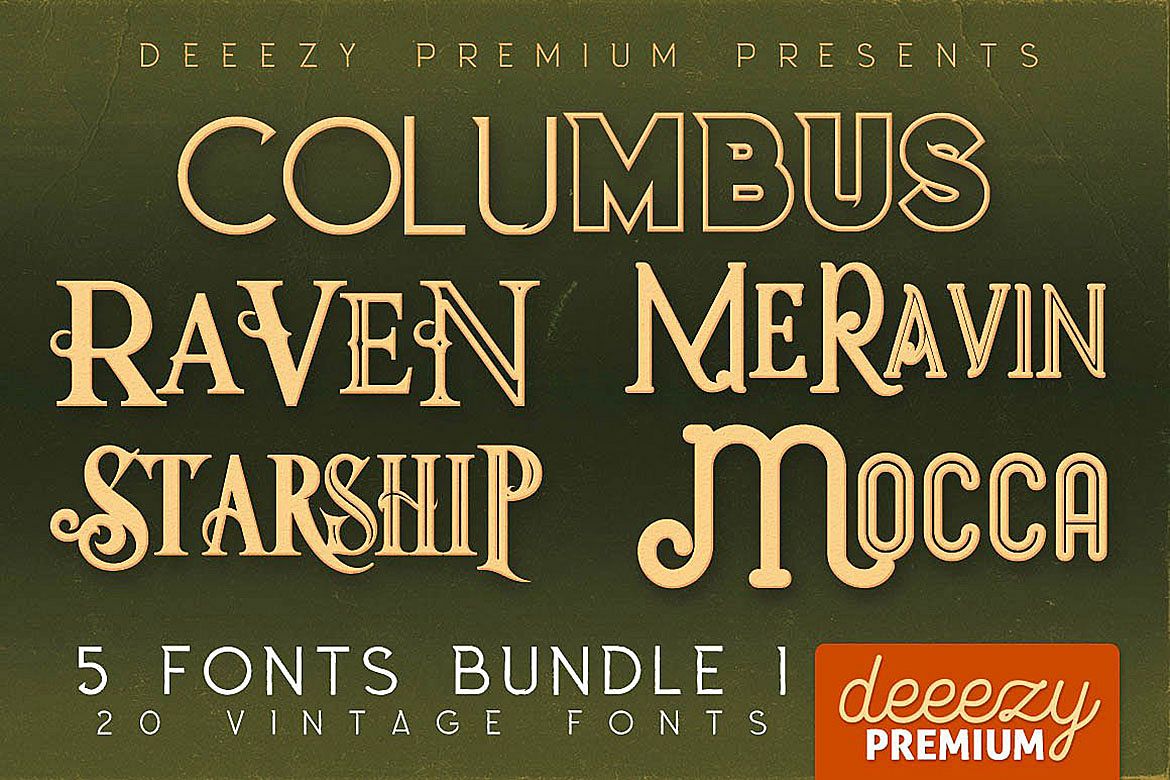
Created By Cruzine Design
5 Fonts Bundle 1
Extra fonts bundle - you'll find some new versions of 5 popular fonts in this bundle!Cool retro or vintage style fonts for your new projets. These are mainly display fonts so best for your branding, identity, logo, print, headers, t-shirt and other projects...
• 5 font families with 20 fonts!